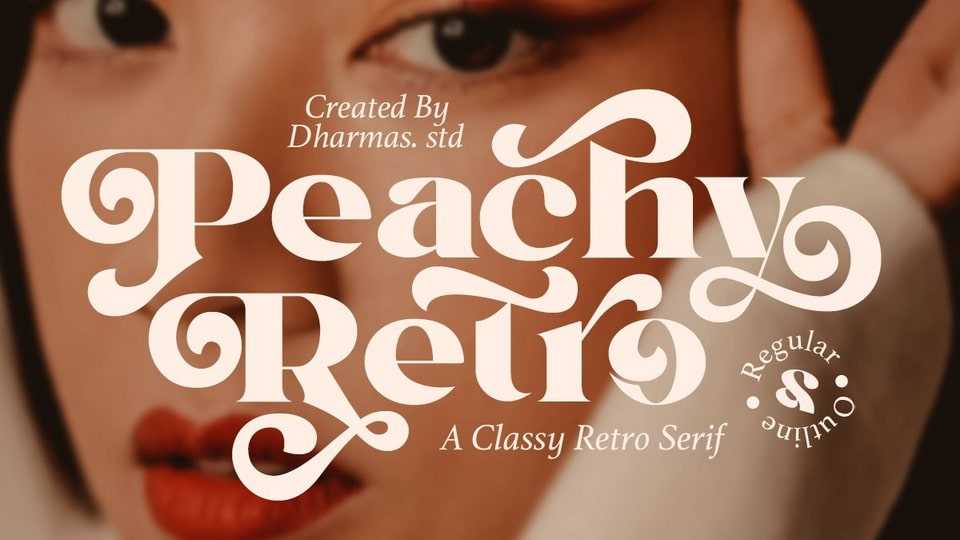
Download Peachy Retro font, a beautiful serif typeface with all the nostalgic vibes. Peachy Retro looks incredible in both large and small settings as a display text.